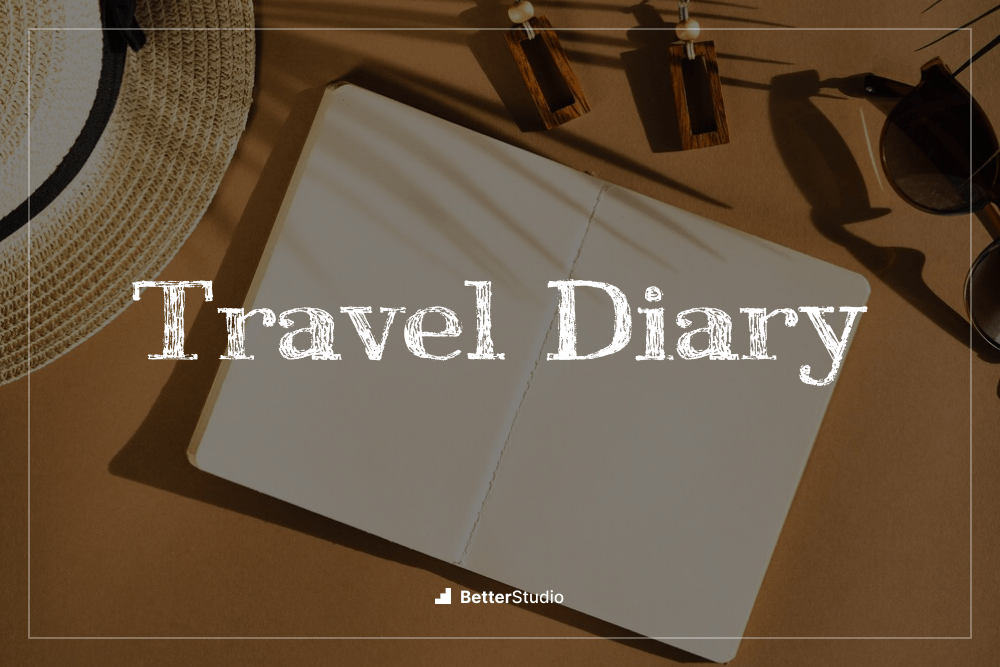
Travel Diary Font . Travel diary is a fancy type font that can be used on any device such as pc, mac, linux,. Whether you're crafting a travel blog post or designing a tourism brochure, the right font can set the perfect adventurous tone. 21,112 downloads (4 yesterday) free for personal use. Travel diary is a handwritten display typeface with its bold graphic presence making it ideal for usage in informal postcards, invitations, travel and lifestyle magazines, wedding and. Travel diary by siddharth dasari. Thank you for downloading our font! Get your very own free download of the travel diary font, designed and created by siddharth dasari. 112,763 downloads (2 yesterday) donationware. Moreover, you can embed it to your website. Embark on a journey with these fonts; Available in both ttf and otf typeface. Travel diary font download is available free from fontget.
Whether you're crafting a travel blog post or designing a tourism brochure, the right font can set the perfect adventurous tone. Travel diary by siddharth dasari. Moreover, you can embed it to your website. Available in both ttf and otf typeface. Travel diary is a handwritten display typeface with its bold graphic presence making it ideal for usage in informal postcards, invitations, travel and lifestyle magazines, wedding and. Get your very own free download of the travel diary font, designed and created by siddharth dasari. Embark on a journey with these fonts; 112,763 downloads (2 yesterday) donationware. Thank you for downloading our font! Travel diary font download is available free from fontget.
Travel Diary Font Travel diary is a handwritten display typeface with its bold graphic presence making it ideal for usage in informal postcards, invitations, travel and lifestyle magazines, wedding and. Embark on a journey with these fonts; Get your very own free download of the travel diary font, designed and created by siddharth dasari. Whether you're crafting a travel blog post or designing a tourism brochure, the right font can set the perfect adventurous tone. Moreover, you can embed it to your website. Travel diary font download is available free from fontget. 21,112 downloads (4 yesterday) free for personal use. Thank you for downloading our font! 112,763 downloads (2 yesterday) donationware. Travel diary by siddharth dasari. Available in both ttf and otf typeface. Travel diary is a handwritten display typeface with its bold graphic presence making it ideal for usage in informal postcards, invitations, travel and lifestyle magazines, wedding and. Travel diary is a fancy type font that can be used on any device such as pc, mac, linux,.
Travel Journal font Travel Diary Font Travel diary is a handwritten display typeface with its bold graphic presence making it ideal for usage in informal postcards, invitations, travel and lifestyle magazines, wedding and. Embark on a journey with these fonts; 21,112 downloads (4 yesterday) free for personal use. Thank you for downloading our font! Travel diary by siddharth dasari. Whether you're crafting a travel blog post. Travel Diary Font.
Travel Diary Hand Lettering On White Stock Vector (Royalty Free Travel Diary Font Travel diary font download is available free from fontget. Thank you for downloading our font! 112,763 downloads (2 yesterday) donationware. Embark on a journey with these fonts; Get your very own free download of the travel diary font, designed and created by siddharth dasari. Moreover, you can embed it to your website. Travel diary by siddharth dasari. 21,112 downloads (4. Travel Diary Font.
Travel Journal Font Travel Diary Font 112,763 downloads (2 yesterday) donationware. Travel diary is a handwritten display typeface with its bold graphic presence making it ideal for usage in informal postcards, invitations, travel and lifestyle magazines, wedding and. Whether you're crafting a travel blog post or designing a tourism brochure, the right font can set the perfect adventurous tone. Thank you for downloading our font! Moreover,. Travel Diary Font.
Our Travel Diary Font Design, Our Travel Diary, Diary PNG Travel Diary Font Whether you're crafting a travel blog post or designing a tourism brochure, the right font can set the perfect adventurous tone. Travel diary font download is available free from fontget. Travel diary is a handwritten display typeface with its bold graphic presence making it ideal for usage in informal postcards, invitations, travel and lifestyle magazines, wedding and. Moreover, you can. Travel Diary Font.
Travel Diary font , Fancy Various fonts Travel Diary Font Travel diary is a handwritten display typeface with its bold graphic presence making it ideal for usage in informal postcards, invitations, travel and lifestyle magazines, wedding and. Travel diary by siddharth dasari. Moreover, you can embed it to your website. Embark on a journey with these fonts; 21,112 downloads (4 yesterday) free for personal use. 112,763 downloads (2 yesterday) donationware.. Travel Diary Font.
Travel Diary font by Siddharth Dasari FontRiver Travel Diary Font Travel diary font download is available free from fontget. 112,763 downloads (2 yesterday) donationware. Thank you for downloading our font! Embark on a journey with these fonts; Available in both ttf and otf typeface. Moreover, you can embed it to your website. Travel diary is a handwritten display typeface with its bold graphic presence making it ideal for usage in. Travel Diary Font.
Travel Diary Font Download Free for Desktop & font Travel Diary Font Travel diary is a handwritten display typeface with its bold graphic presence making it ideal for usage in informal postcards, invitations, travel and lifestyle magazines, wedding and. Travel diary by siddharth dasari. Travel diary is a fancy type font that can be used on any device such as pc, mac, linux,. 21,112 downloads (4 yesterday) free for personal use. Embark. Travel Diary Font.
Travel diary hand drawn lettering for notepad, planner, diary Travel Diary Font Travel diary font download is available free from fontget. 21,112 downloads (4 yesterday) free for personal use. Embark on a journey with these fonts; Moreover, you can embed it to your website. Get your very own free download of the travel diary font, designed and created by siddharth dasari. Thank you for downloading our font! Available in both ttf and. Travel Diary Font.
Travel Diary Font download free Travel Diary Font Travel diary is a handwritten display typeface with its bold graphic presence making it ideal for usage in informal postcards, invitations, travel and lifestyle magazines, wedding and. Whether you're crafting a travel blog post or designing a tourism brochure, the right font can set the perfect adventurous tone. 112,763 downloads (2 yesterday) donationware. Travel diary font download is available free. Travel Diary Font.